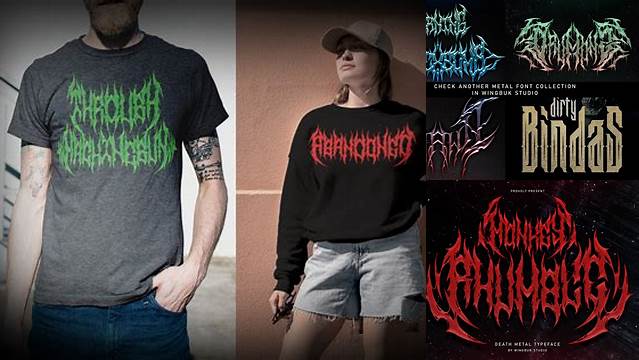
Are you looking to add a unique, bold, and metal-inspired touch to your design projects? Look no further! The Monkey Rhumble Metal Font is a fantastic choice for designers and creatives who want to make a statement. This article will guide you through everything you need to know about this striking font, including its features, potential uses, and, most importantly, where you can find free downloads. Let's dive in and explore the world of Monkey Rhumble Metal Font!
What is Monkey Rhumble Metal Font?
Monkey Rhumble Metal Font is a display typeface characterized by its rugged, industrial, and somewhat aggressive aesthetic. The font often features sharp edges, distressed textures, and a generally heavy appearance, making it perfect for designs that need to convey strength, power, or a rebellious attitude. Think of album covers for metal bands, edgy posters, or even branding for a tough, no-nonsense product – that's where this font shines. Its design draws inspiration from the raw energy of metal music and the gritty feel of industrial environments. The font's letterforms are crafted to evoke a sense of impact and durability, often incorporating elements that mimic the look of forged metal or distressed surfaces. This makes it an ideal choice for projects aiming to capture a bold and unconventional aesthetic. When compared to more traditional fonts, such as serif or sans-serif typefaces, Monkey Rhumble stands out with its distinctive and assertive personality. While serif fonts convey elegance and formality, and sans-serif fonts offer simplicity and modernity, Monkey Rhumble carves its own niche by embodying the raw, untamed spirit of the metal genre. This makes it particularly appealing for designers seeking to create a visual statement that resonates with audiences who appreciate edginess and unconventional design. Furthermore, the font's versatility allows it to be adapted to various design contexts, from digital graphics to print materials, ensuring that it remains a valuable asset in any designer's toolkit. Whether used for headlines, logos, or promotional materials, Monkey Rhumble Metal Font adds a distinctive and unforgettable touch, setting your designs apart from the competition. Its unique blend of industrial and artistic elements makes it a go-to choice for those looking to infuse their work with a rebellious and dynamic flair. So, if you're aiming to create a design that truly stands out and captures attention, consider harnessing the power of Monkey Rhumble Metal Font to bring your vision to life.
Key Features of Monkey Rhumble Metal Font
When we talk about the key features of the Monkey Rhumble Metal Font, there are several elements that make it stand out and contribute to its unique appeal. First and foremost, its boldness is a defining characteristic. The thick, heavy strokes of the letters immediately grab attention, making it perfect for headlines and titles that need to make a strong impact. This inherent boldness ensures that the font remains legible even at a distance, making it suitable for posters, banners, and other large-format displays. Secondly, the distressed texture adds a layer of depth and character to the font. Rather than appearing clean and polished, the letters often have a rough, weathered look, as if they've been through the ringer. This texture enhances the font's industrial feel, giving it a sense of authenticity and ruggedness. It's like the font has a story to tell, adding an extra layer of visual interest to your designs. Another crucial aspect is the sharp edges and geometric shapes that define the letterforms. These elements contribute to the font's aggressive and edgy aesthetic. The sharp angles create a sense of dynamism and energy, while the geometric shapes provide a structured and modern look. This combination of sharpness and structure makes the font visually striking and memorable. Furthermore, versatility is a key feature that shouldn't be overlooked. While the font is primarily associated with metal and industrial themes, it can be adapted to a variety of design contexts. Whether you're working on a poster for a rock concert, a logo for a construction company, or a website for a tech startup, Monkey Rhumble Metal Font can be customized to fit your specific needs. Its adaptability makes it a valuable asset in any designer's toolkit. In addition to these core features, kerning and letter spacing play a significant role in the font's overall appearance. The careful attention to detail in the spacing between letters ensures that the font remains legible and visually balanced, even at different sizes and resolutions. This level of refinement enhances the font's professional quality and makes it a reliable choice for a wide range of design applications. Overall, the key features of Monkey Rhumble Metal Font – its boldness, distressed texture, sharp edges, geometric shapes, and versatility – combine to create a typeface that is both visually striking and highly functional. These elements work together to make the font a powerful tool for designers looking to make a statement and leave a lasting impression.
Where to Use Monkey Rhumble Metal Font
The Monkey Rhumble Metal Font is incredibly versatile, making it suitable for a wide range of design projects. One of the most common applications is in music-related designs. Think album covers for metal, rock, or punk bands. The font's aggressive and edgy aesthetic perfectly complements the energy and attitude of these genres. It can also be used for concert posters, band logos, and merchandise designs, helping to create a cohesive and impactful brand identity. Beyond music, this font is also excellent for branding and advertising. If you're looking to create a logo for a company that wants to project strength, durability, or innovation, Monkey Rhumble Metal Font can be a great choice. It's particularly well-suited for businesses in industries such as construction, automotive, or technology. The font's bold and industrial look can help to convey a sense of reliability and expertise, making your brand stand out from the competition. In the realm of event posters and flyers, Monkey Rhumble Metal Font can add a touch of excitement and visual interest. Whether you're promoting a sporting event, a festival, or a theatrical performance, this font can help to grab attention and create a sense of anticipation. Its bold and dynamic style is perfect for conveying the energy and excitement of the event, making it more appealing to potential attendees. Additionally, Monkey Rhumble Metal Font can be used in video games and digital art. Its edgy and industrial aesthetic makes it a natural fit for games with a dark or dystopian theme. It can be used for titles, menus, and in-game text, helping to create a immersive and engaging user experience. Similarly, digital artists can use the font to add a touch of grit and realism to their artwork, whether it's for character design, environmental art, or promotional materials. Furthermore, apparel design is another area where Monkey Rhumble Metal Font can shine. The font's bold and edgy style makes it perfect for creating t-shirts, hoodies, and other clothing items that make a statement. Whether you're designing merchandise for a band, creating a line of streetwear, or simply want to add some personality to your wardrobe, this font can help you to express your unique style. In summary, the Monkey Rhumble Metal Font is a versatile and impactful typeface that can be used in a wide range of design projects. From music-related designs to branding, advertising, event posters, video games, digital art, and apparel design, this font can help you to create a visually striking and memorable impression. Its bold and edgy aesthetic makes it a perfect choice for projects that need to convey strength, durability, or innovation.
Alternatives to Monkey Rhumble Metal Font
If you're unable to find Monkey Rhumble Metal Font or simply want to explore other options, there are plenty of alternative fonts that offer a similar aesthetic. One popular choice is Headhunter. This font features a bold, industrial design with sharp edges and a distressed texture, making it a great alternative for projects that need to convey strength and aggression. Headhunter is available in several different styles, so you can choose the one that best fits your needs. Another option is * লৌহিত্য*. This font is inspired by the typography of vintage metal posters and signs. It features a bold, condensed design with a slightly weathered appearance, giving it a classic and timeless feel. Ironwood is a great choice for projects that need to evoke a sense of nostalgia or authenticity. If you're looking for something a bit more modern, consider Norwester. This font features a geometric sans-serif design with a bold and impactful presence. Norwester is a versatile font that can be used in a wide range of design projects, from logos and headlines to posters and websites. Its clean lines and sharp angles make it a great choice for projects that need to convey a sense of modernity and sophistication. For a more grungy and distressed look, check out Destroyer. This font features a heavily textured design with rough edges and a hand-drawn feel. Destroyer is a great choice for projects that need to convey a sense of raw energy and rebellion. It's particularly well-suited for music-related designs, such as album covers and concert posters. Another alternative is Graveblade. This font features a dark and menacing design with sharp, jagged edges. Graveblade is a great choice for projects that need to convey a sense of horror or suspense. It's particularly well-suited for Halloween-themed designs, horror movie posters, and other spooky projects. Ultimately, the best alternative to Monkey Rhumble Metal Font will depend on the specific needs of your project. Consider the overall aesthetic you're trying to achieve, the target audience, and the context in which the font will be used. Experiment with different fonts and see what works best for your design. And don't be afraid to mix and match different fonts to create a unique and memorable look. Remember, typography is an important part of design, so take the time to choose the right font for your project. With a little bit of research and experimentation, you can find the perfect font to convey your message and create a lasting impression.
In conclusion, the Monkey Rhumble Metal Font is a powerful and versatile typeface that can add a unique and edgy touch to your design projects. Its bold design, distressed texture, and sharp edges make it a great choice for projects that need to convey strength, durability, or a rebellious attitude. While finding free downloads of this font can be tricky, it's important to prioritize safety and licensing when searching online. Stick to reputable websites, double-check the font license, and run a virus scan before installing any downloaded fonts. If you're unable to find Monkey Rhumble Metal Font or simply want to explore other options, there are plenty of alternative fonts that offer a similar aesthetic. Experiment with different fonts and see what works best for your design. And remember, typography is an important part of design, so take the time to choose the right font for your project. With a little bit of research and experimentation, you can find the perfect font to convey your message and create a lasting impression. So go ahead, explore the world of metal fonts and unleash your creativity!